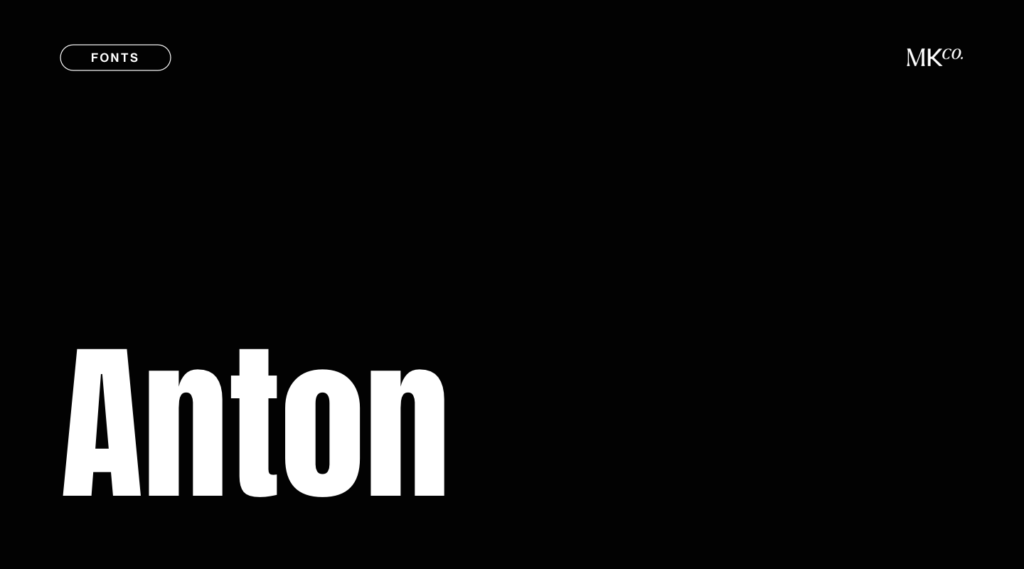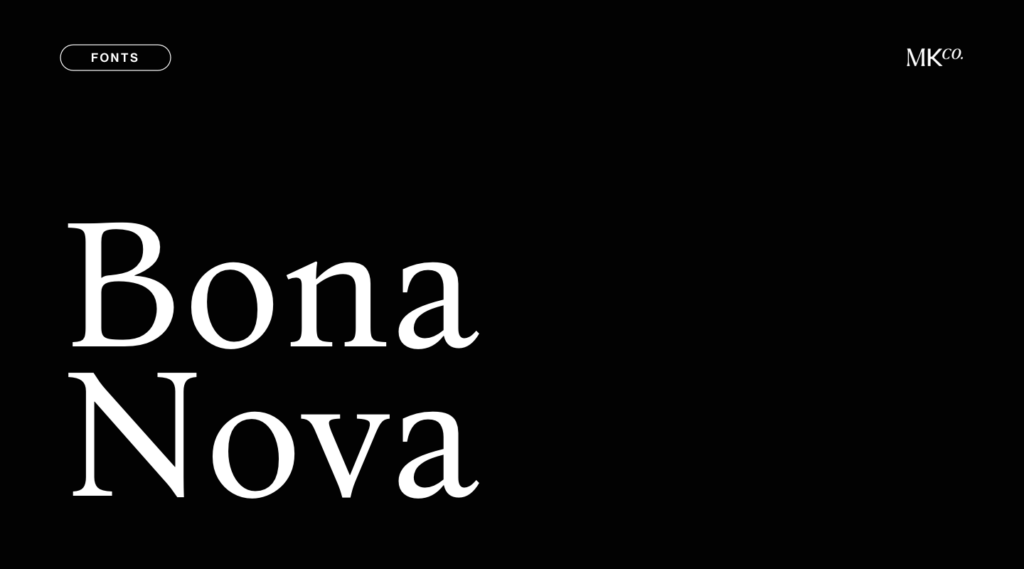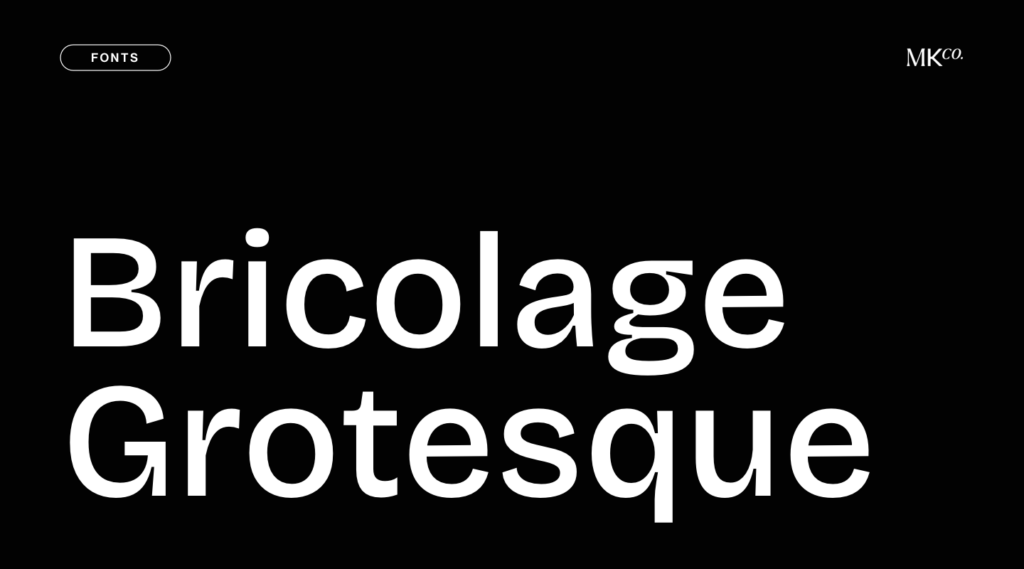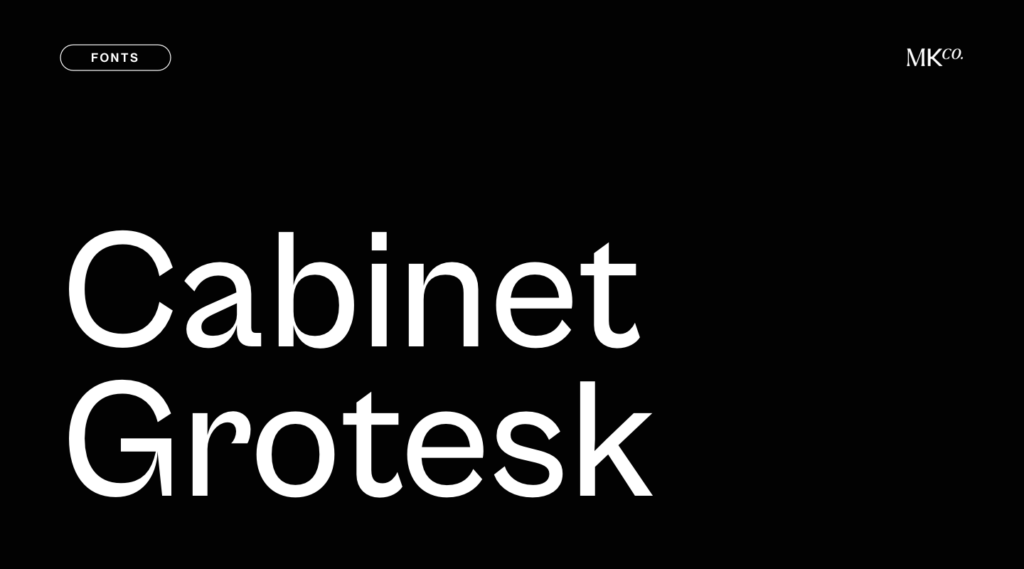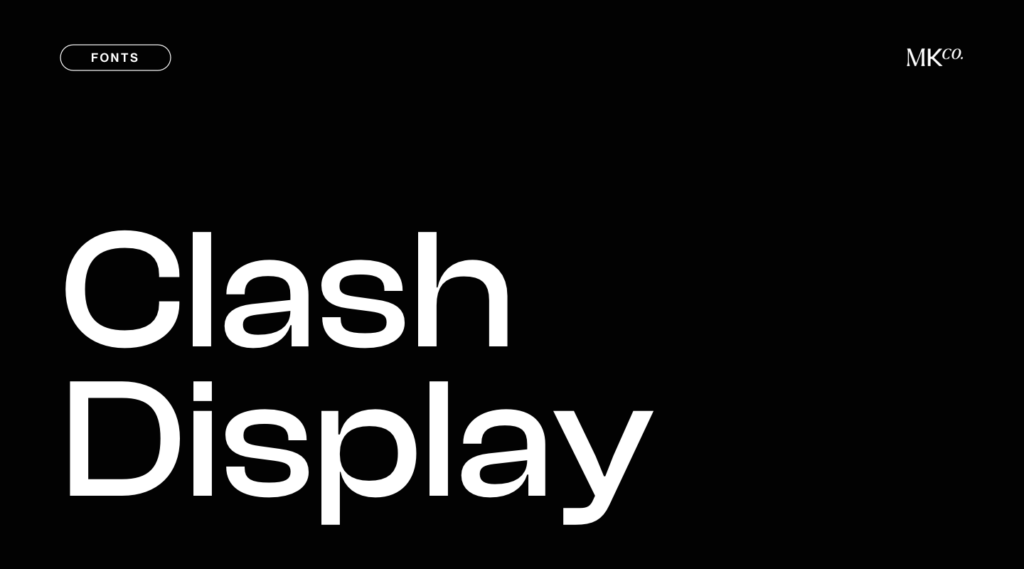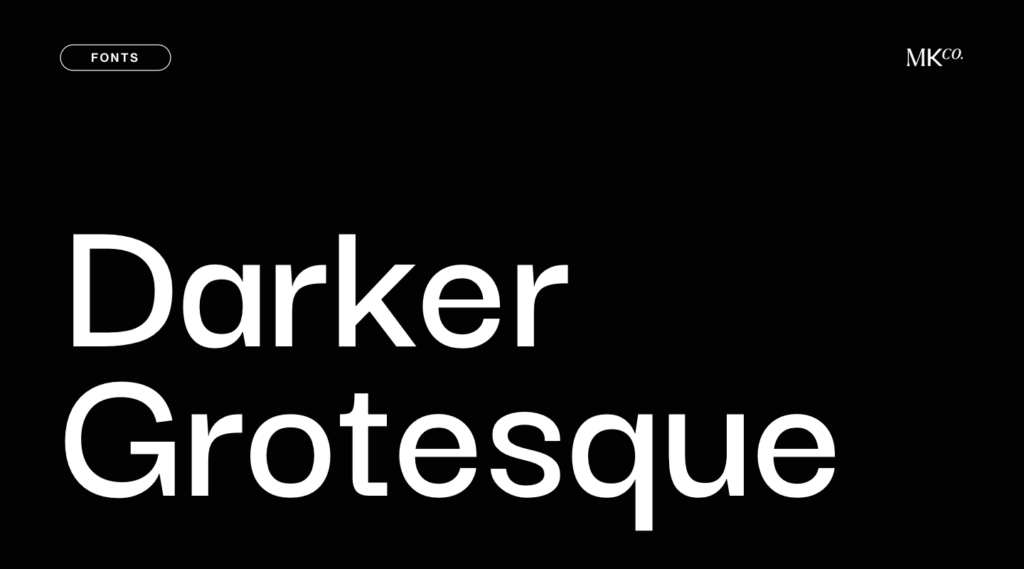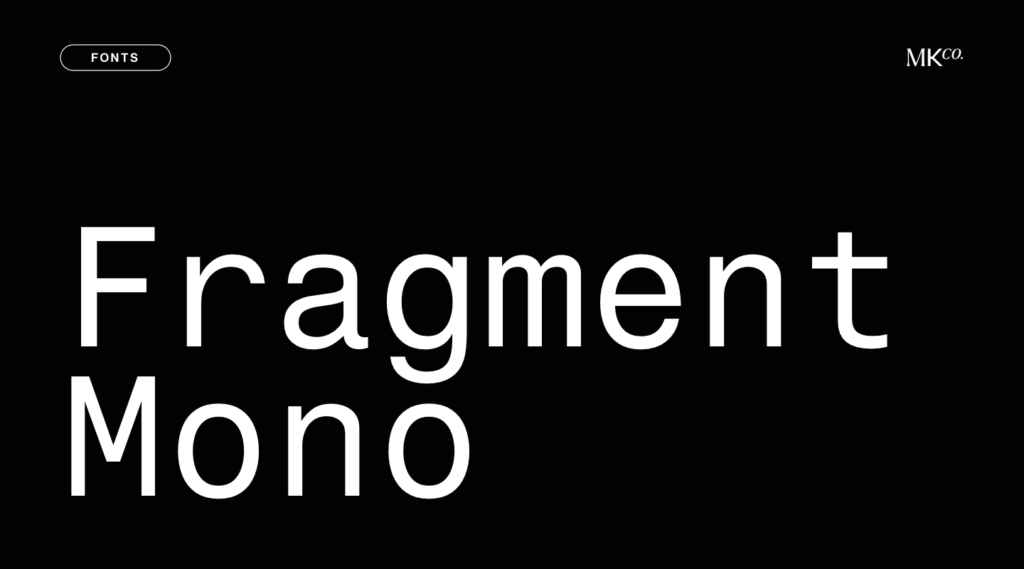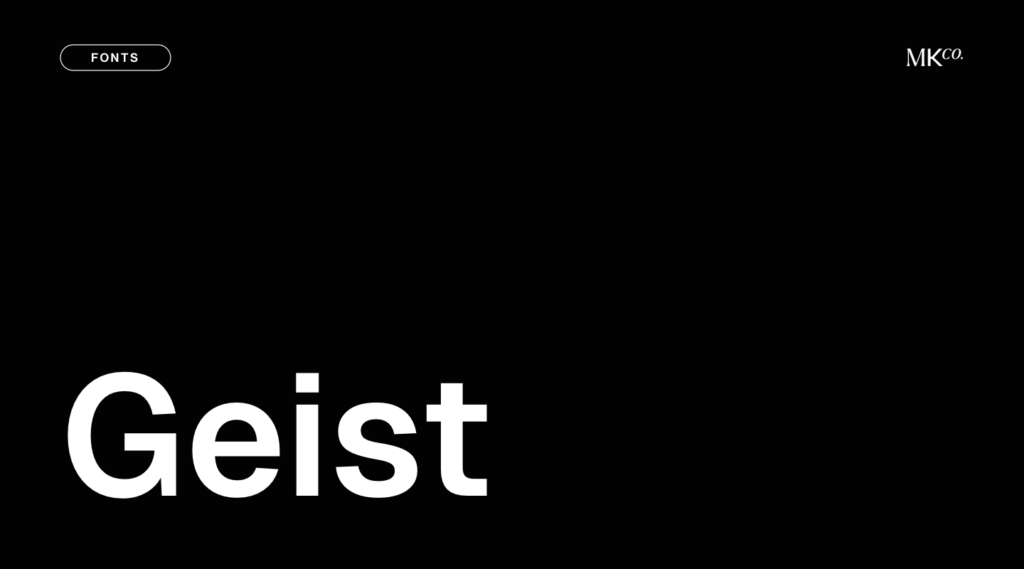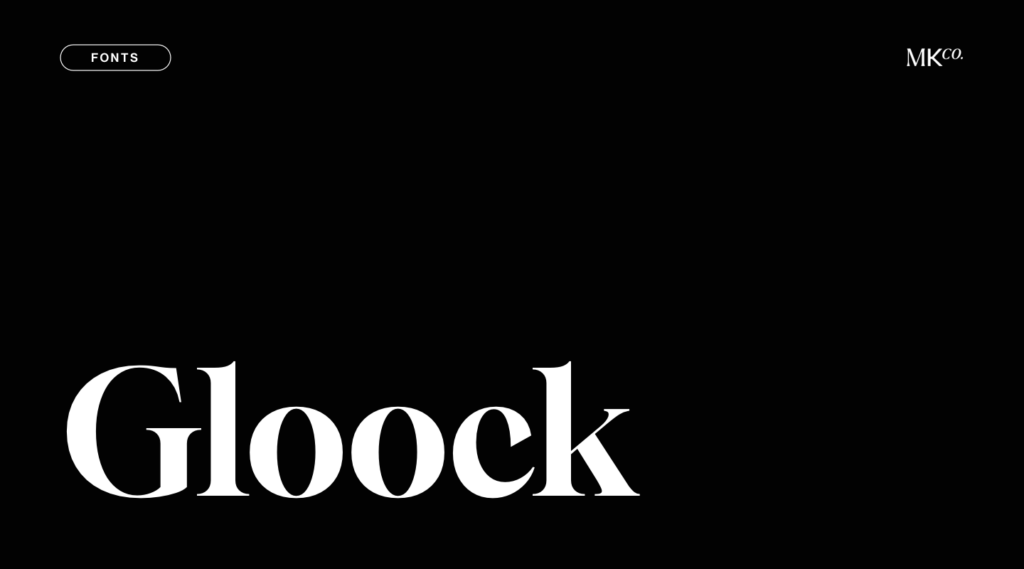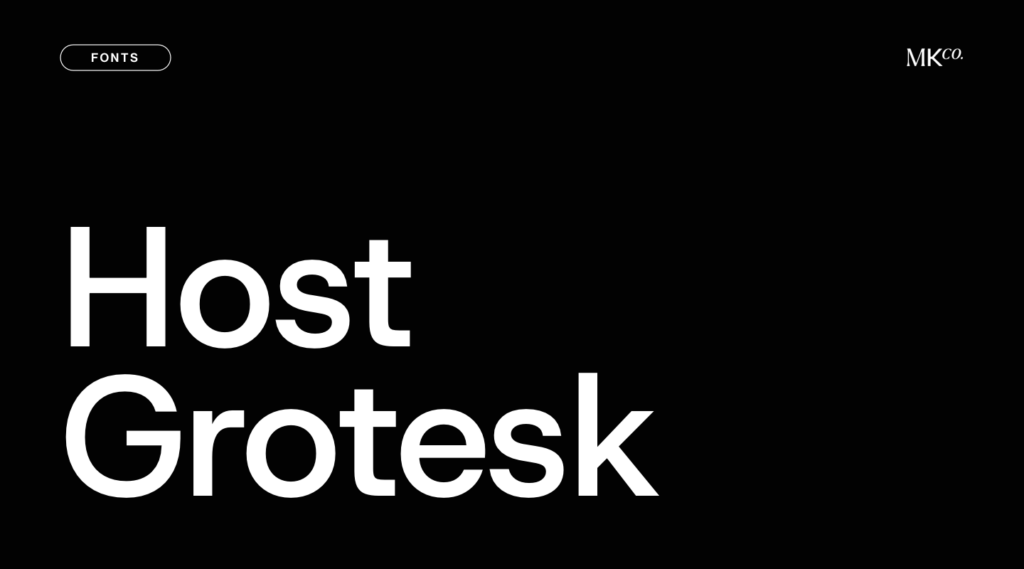
This post isn’t for the Hollywood stars of free fonts. Nah. You won’t find household names here—no Roboto or Montserrat in sight.
Instead, we’re diving into the hidden gems. Newly released fonts, or older ones that deserve way more love and recognition than they get.
In short, 17 under-the-radar free fonts every designer should know about.
These beauties aren’t just trendy, they’re versatile enough to fit a range of projects, giving you a creative edge whether you’re designing a website, brand identities, templates, and what not.
So, if you’re ready to expand your font library with a few new favorites, I invite you to meet these stylish typefaces that even your most font-nerd designer friends might not know yet.
Instrument Serif
A beautiful display font, intended for use at large sizes. It includes one regular weight both in normal and Italic styles.
Darker Grotesque
A contemporary grotesque typeface, perfect for body text and headings. It comes in seven weights, from 300 to 900.
Space Grotesk
A proportional sans serif typeface with five weights (300 to 700). It’s one of my personal favorites and go-to fonts for a monospace –yet sans-serif– look.
Bona Nova
A serif font with a more traditional vibe based on Bona, a cursive typeface from 1971. Perfect for editorial or personal projects. It comes in 400, 400 italic and 700 styles.
Bricolage Grotesque
Quirky yet refined, Bricolage Grotesque mixes sharp angles and soft curves, giving your designs a playful but sophisticated vibe. Perfect for brands looking to make a bold statement. It comes in 7 weights, from 200 to 800.
Fragment Mono
A monospaced typeface with a clean and modern aesthetic. Perfect as an accent font in designs with a minimalist vibe. It comes in two styles: regular and italic.
Manrope
An open-source sans serif font family with a modern look including seven weights from 200 to 800.
Cabinet Grotesk
A sans serif variable font with a twist. Its letters feature high contrasting strokes, which sets them apart from other sans serifs and gives this typeface a unique mood and lots of personality.
Clash Display
A wide display font with 6 styles and variable weight. Its neo-grotesk style and small apertures make it a great choice for large-sized eye-catching texts.
Rethink Sans
A fork of the beautiful DM Sans typeface, Rethink takes it even further with a few enhancements and refinements. It comes in five weights from regular to extra bold, including italic style. Perfect for body text as well as larger headings.
Satoshi
A versatile modernist sans serif typeface that blends grotesque-style letterforms with geometric influences, drawing inspiration from Modernism and Industrial-era design. With ten weights (going from light to black), plus italics, I believe it’s perfect for branding, editorial, and poster design.
Anton
A display typeface based on traditional advertising sans-serif fonts. Anton’s bold and condensed structure makes it ideal for impactful headlines and large-sized texts.
Designed by: Vernon Adams
Host Grotesk
A sans-serif typeface based on the famous Poppins, with a grotesque and contemporary look. It comes in 6 weights from 300 to 800, including italics. What’s quite interesting about this typeface is that its letters have a uniform width and space across all its styles, which helps achieve more consistent layouts and makes it a great choice for both display and body text.
Designed by: Element Type, Doğukan Karapınar, İbrahim Kaçtıoğlu
Geist
Inspired by Swiss design, Geist is a geometric typeface with a clean and modern aesthetic. It comes in 9 weights from thin to black. And will work great in both smaller and large-sized texts.
Designed by: Vercel and Basement Studio
Inter Tight
You probably know the beautiful Inter, but have you heard of Inter Tight? It’s a version of Inter with tighter spacing, great for display usage and a more quirky look.
Gloock
A serif typeface that blends classic elegance with contemporary details, inspired by newspaper’s headlines. Its high contrast and sharp serifs make it a stunning choice for bold and big headlines.